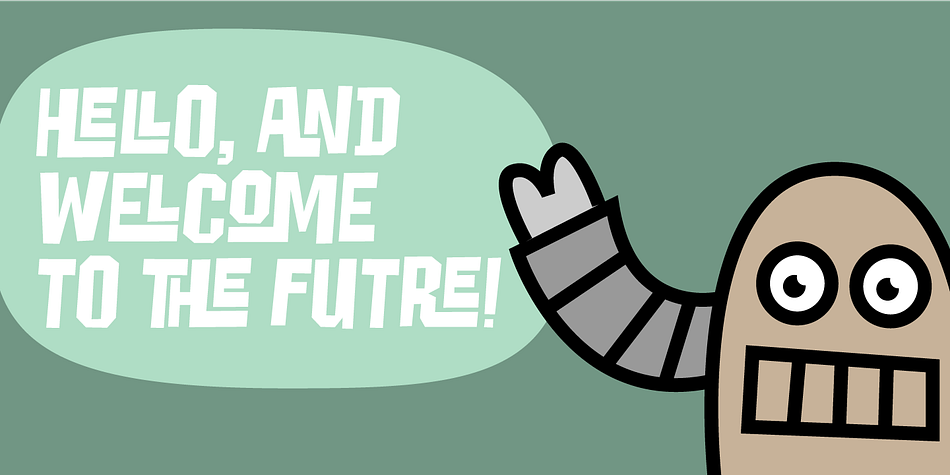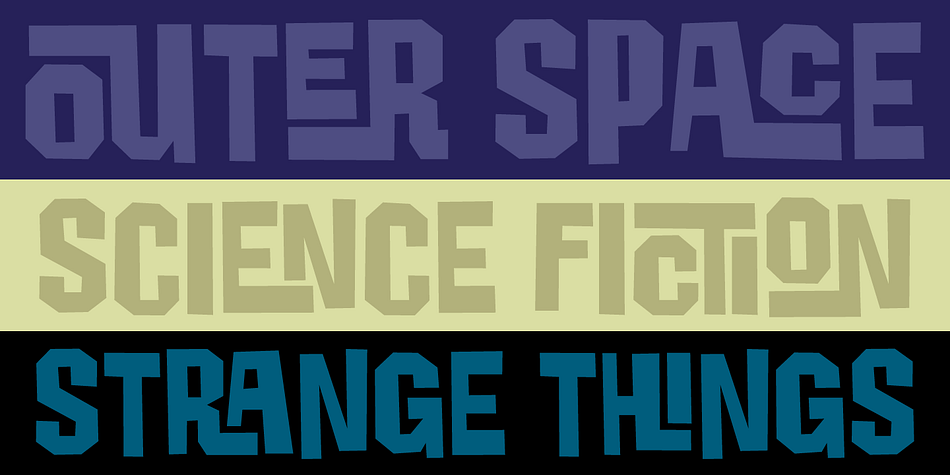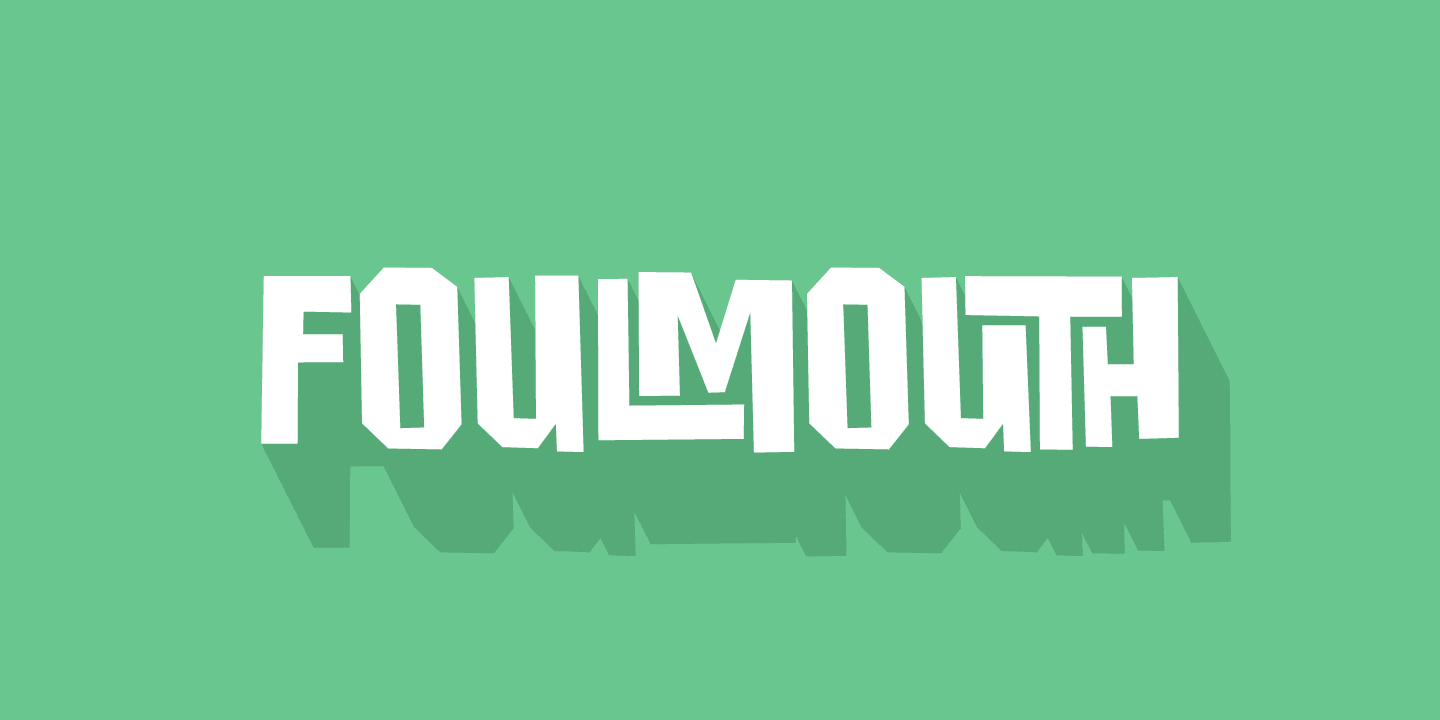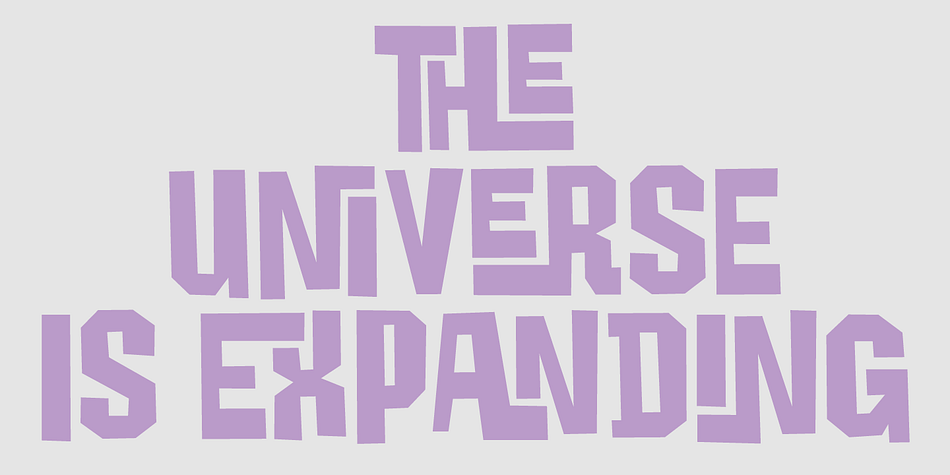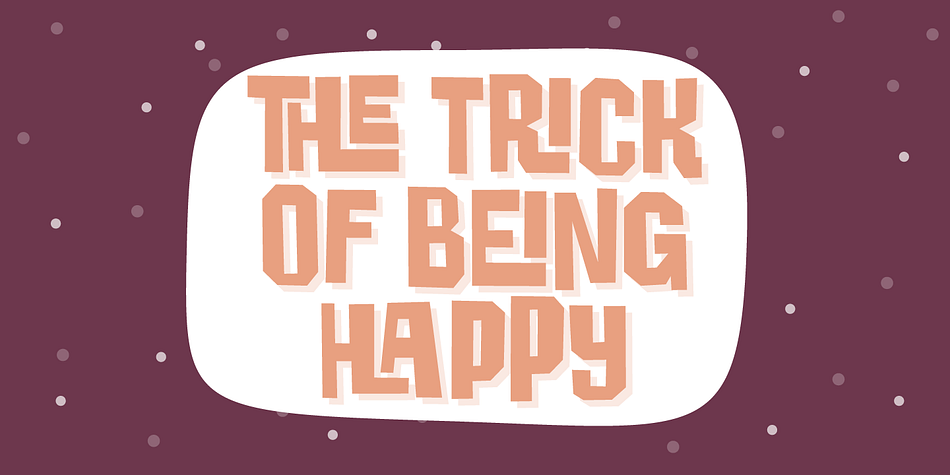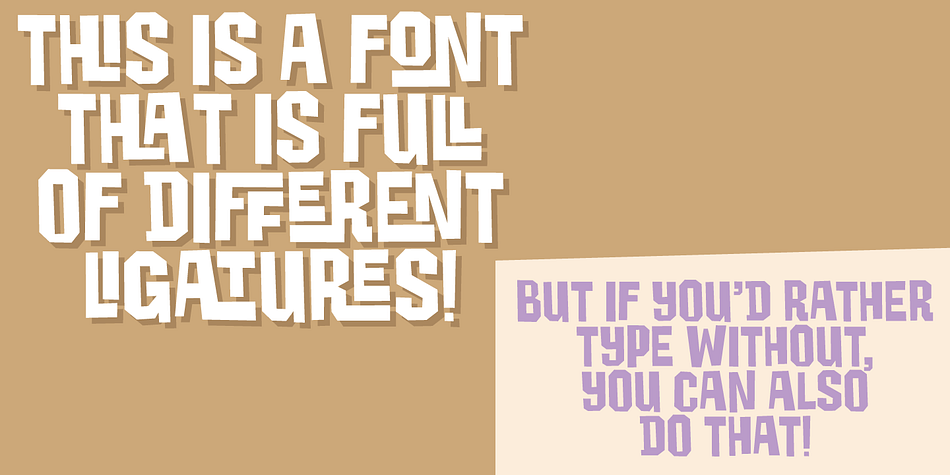
Designed by Jakob Fischer, Foulmouth is a hand display font family. This typeface has two styles and was published by Pizzadude.dk.
Foulmouth comes from the future, and lucky for us, it comes in peace!
The font is made entirely of straight lines, which gives a futuristic look and feel to it. Turn on and off the ligatures to play around with the letters. There is a total of nearly 200 ligatures!